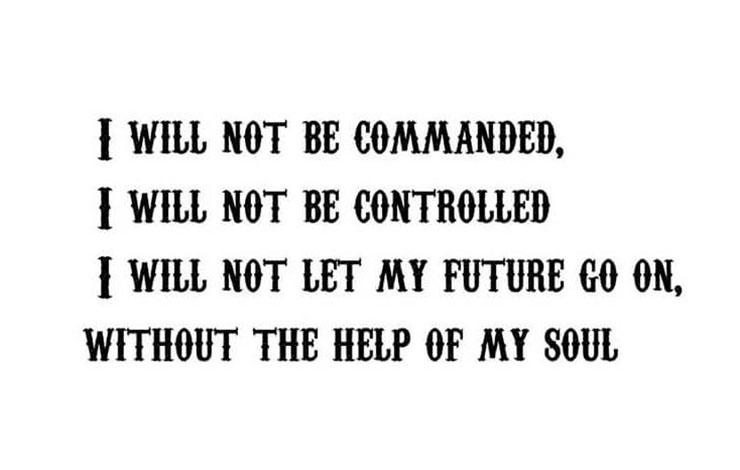
Sons of Anarchy Font is a logo typeface basically, Sons of Anarchy is an American TV series first released in 2008 on Cable network FX. Originally aired from 3 October 2008 to 9 December 2014.
The series follows the story of the Teller-Morrow family in Charming, CA, members of a notorious outlaw motorcycle club who must protect their small town from newcomers as well as their thriving arms business.
The font used for the title of the TV series is Carnevalee Freakshow. It is a Western vintage font that was created by Christopher Hansen.
This font family comes in a single weight along with True Type features. It includes 653 glyphs, capital letters, numbers, symbols, and some punctuation marks. Moreover, it also supports 102 global languages.
Sons of Anarchy Font is a logo typeface basically, Sons of Anarchy is an American TV series first released in 2008 on Cable network FX. Originally aired from 3 October 2008 to 9 December 2014.
The font used for the title of the TV series is Carnevalee Freakshow.